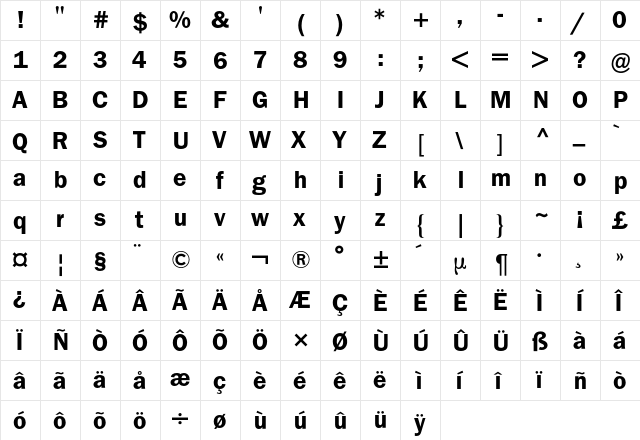
Franklin ITC BQ Regular
Design Context for Franklin ITC BQ Typeface
Franklin ITC BQ takes a measured approach to typography — its balanced proportions and neutral character make it a reliable workhorse for both digital and print work.
Pro Tip: Use Franklin ITC BQ in both headline and body roles to test its range before committing to a single application.